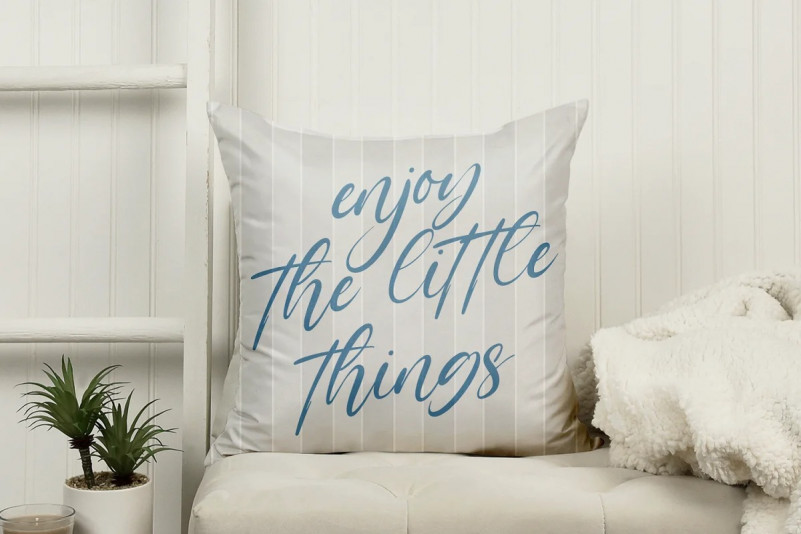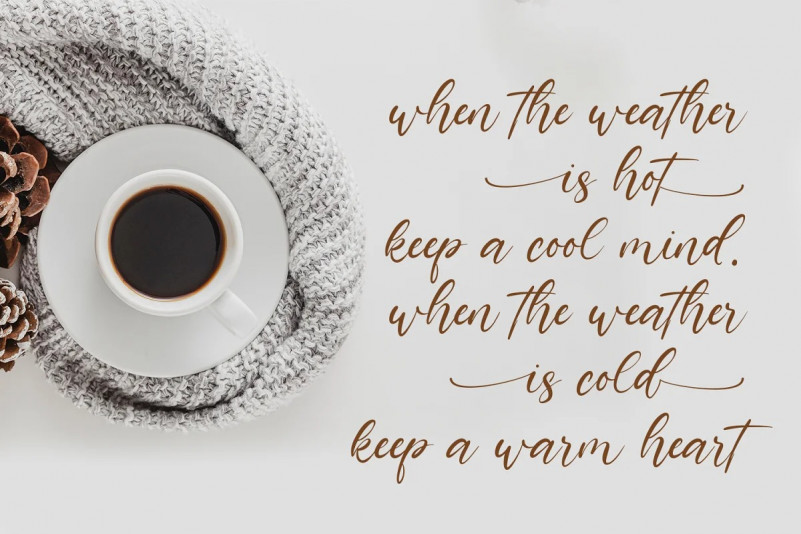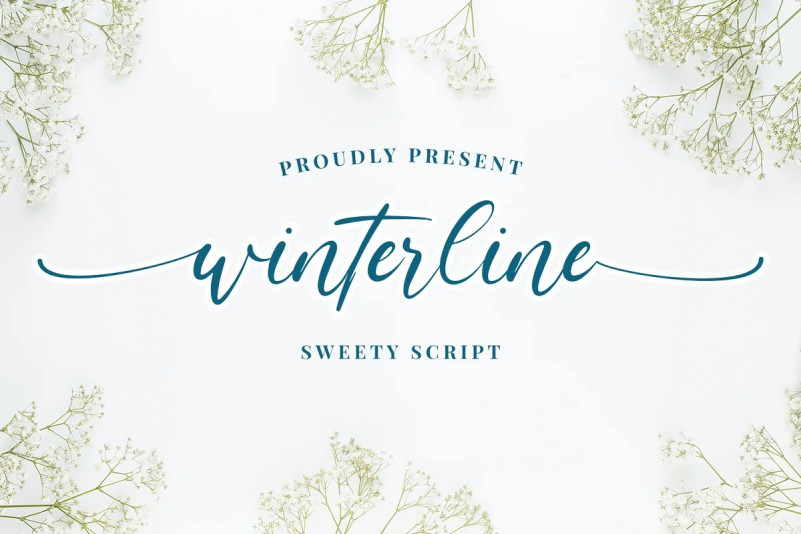
Winterline Calligraphy Font
Winterline Sweety Script font with a natural feel, It has sweety swash that are perfect for any creative design. This handmade font will make your design has a beautiful natural touch for each details. It is perfect for any design project as Invitation,logo, book cover, craft or any design purposes. This font is PUA encoded which means you can access all of the magical glyphs and swashes with ease! It also features a wealth of special features including alternate glyphs and ligatures.